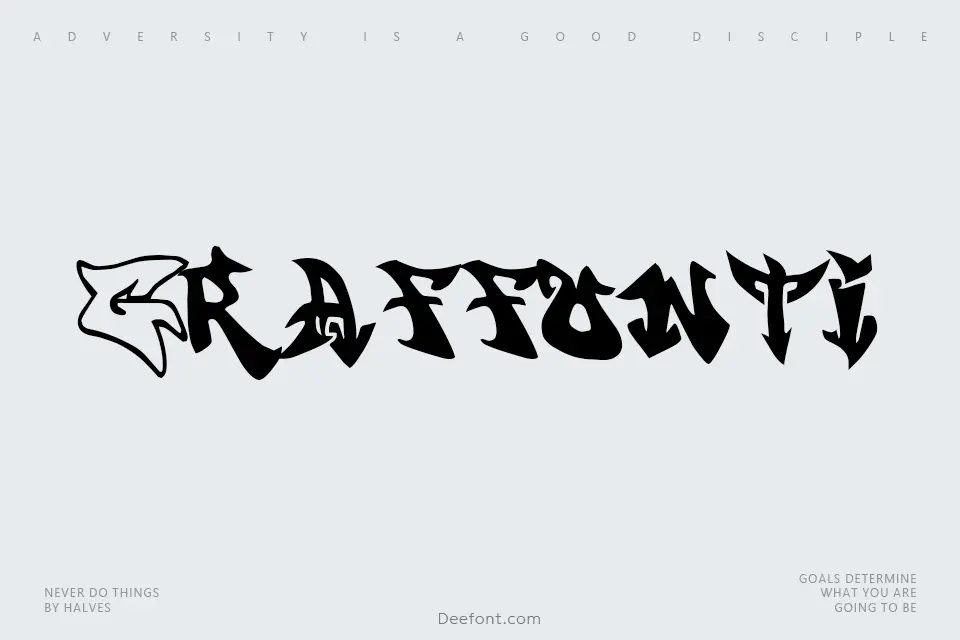
Graffonti Font
Graffonti is a dynamic graffiti-style script font inspired by the urban art movement, featuring bold, edgy letterforms with angular and irregular shapes. Designed to bring street art flair to your creative work, this font is perfect for creating eye-catching logos, poster designs, and urban-inspired graphics. With three distinct style variations—3D Drop, Atomic Bomb, and Gradient Fill—Graffonti offers versatility for both personal projects and professional design work. Its thick, blocky characters combined with modern aesthetics make it an ideal choice for headlines, branding materials, and display typography that demands attention and visual impact.